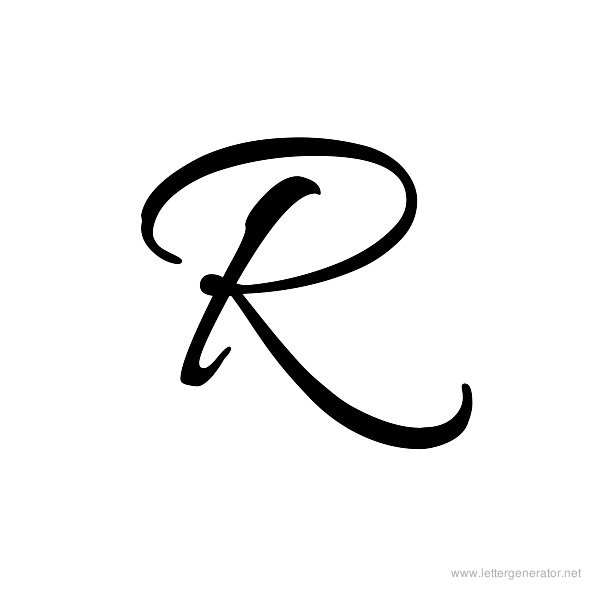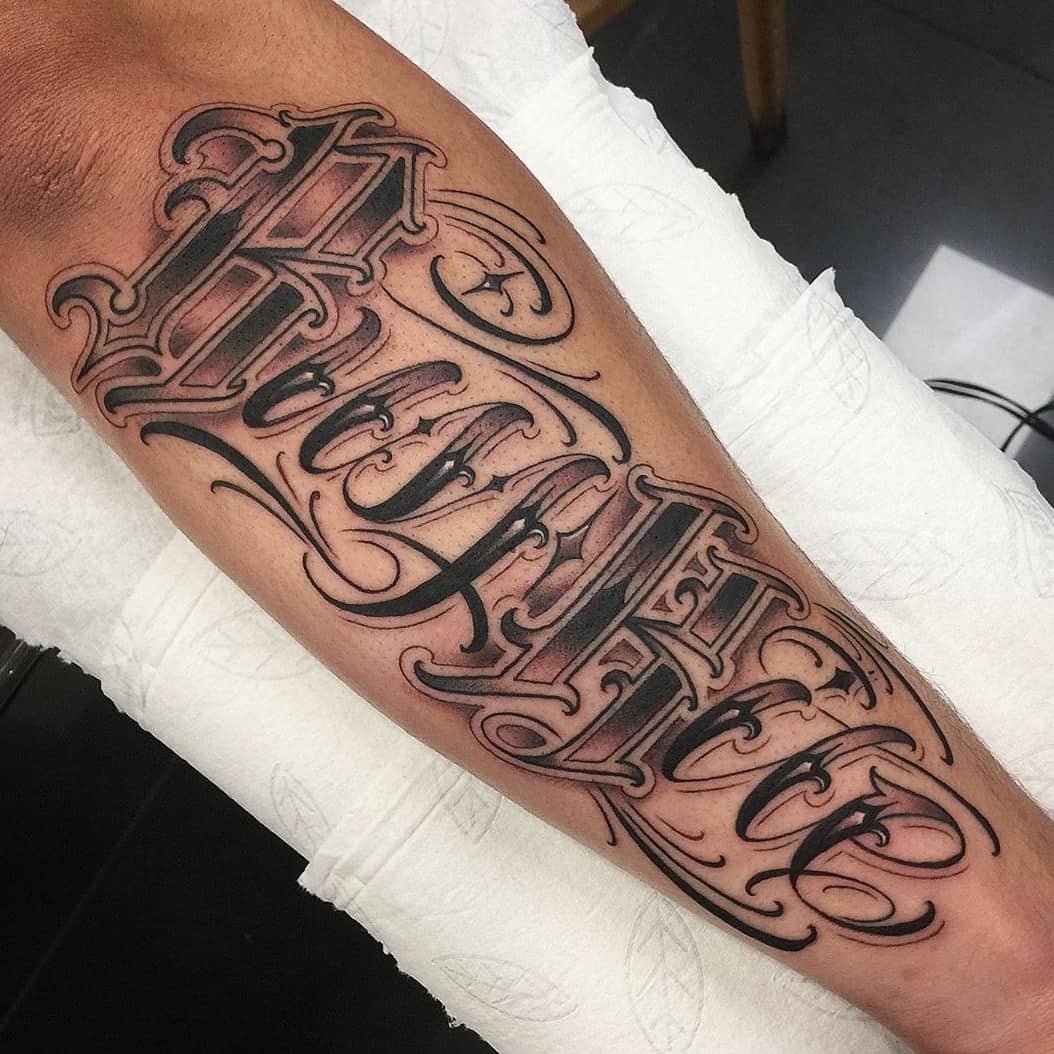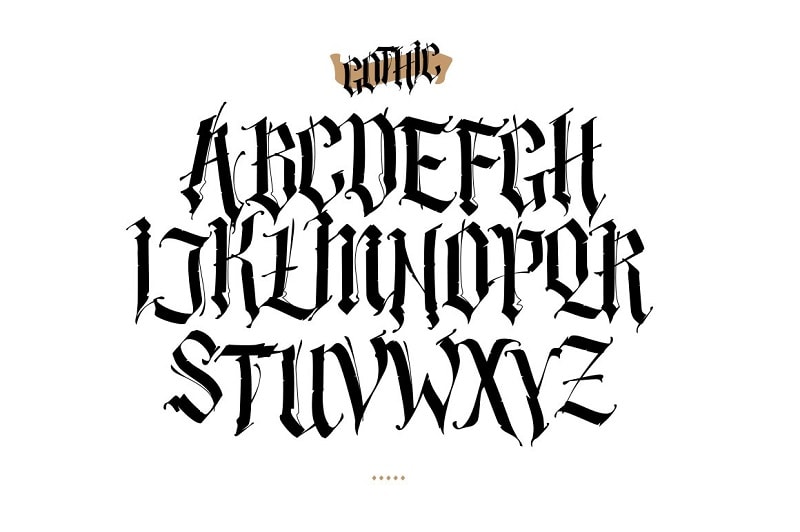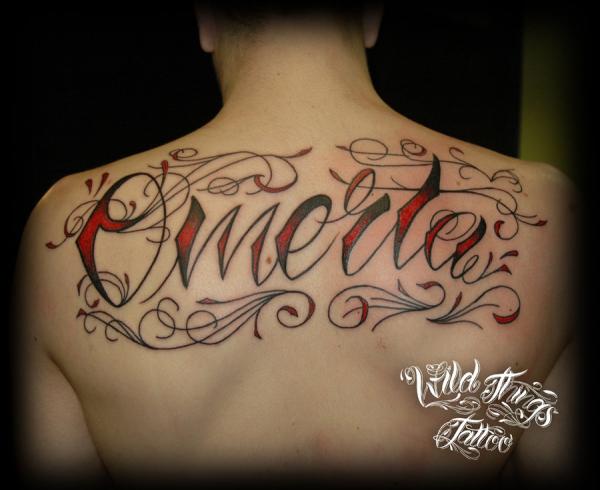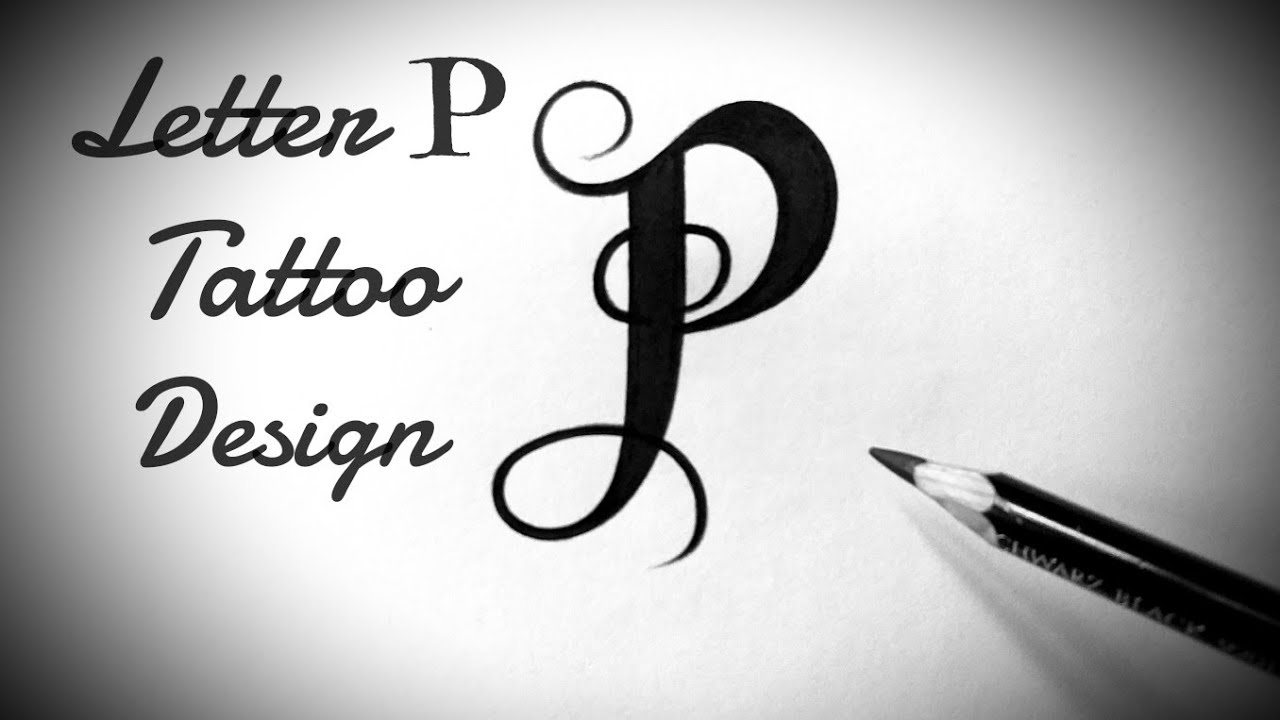
Lemon Jelly by Billy Argel.
Cool letter fonts for tattoos. This page lets you generate all sorts of fancy and cool letters which you can copy and paste to facebook instagram twitter fortnite names discord chat and just about anywhere else that text is allowed. Calligraphy Decorative Gothic Script Tattoo. Go Italics Handwriting Elegant Weird Arabic Ancient.
Tattoos Letters and fonts Symbols emoji. Texts have conveyed human emotion since they were invented. Designs can also be incorporated in tattoo fonts directly.
There are various kinds of Tattoo Lettering Styles all expressing something. Allessa by Billy Argel. Julius Sans One Font Style for a Name Tattoo Best Tattoo Fonts.
Find and download the right font for your next tattoo. Lettering styles include tribal traditional sailor blackletter fancy cursive script etc. Artonic - Cucu Supriyadi.
La Belle Aurore Font Style for a Name Tattoo. Little Lord Font Leroy - Nicks Fonts. These are all great fonts very expressive and showing the different ideas in texts that have been inked by people.
Wicked Tattoo Lettering Alfabeto Completo tattoo lettering fonts wicked script rest tattoos font cool styles quotes hand drawings graffiti sketches sketch freehand ink typography drawn fonts tattoo script letter lettering sleep alphabet font tattoos styles graffiti letters chicano cursive calligraphy drawing gangster drawings mexican english norm tattoo rise wicked script tattoos lettering. Text tattoos are greatly popular. Ginga is an ink-blot style font with long tails and interesting swashes.
There are dozens of fonts to choose from so make sure you scroll down through the list to see them all before deciding on a font that you like. Angel rhapsody by StringLabs. Kelly Slab Font Style for a Name Tattoo.
When you think tattoo font Ink in The Meat is likely the style that comes to mind. Joti One Font Style for a Name Tattoo. Krona One Font Style for a Name Tattoo.
Lovely Home by Typhoon Type - Suthi Srisopha. Chopin Script - Dieter Steffmann. Kotta One Font Style for a Name Tattoo.
The cool visual impact of this tattoo comes from its Bella font and overlapping circles design. See more ideas about tattoos cute tattoos cool tattoos. Summer Daisy by Billy Argel.
Home Tattoos Cute Graffiti Gothic More Graphic fonts Alphabets. Amsterdam by Billy Argel. It brings back memories of some of the older-style tattoos that were popular in the early days of.
The tattoo font is fancy but not too elaborate for everyday use for almost any type of project in need of display lettering with pizzazz. Stay High Typeface GraphicRiver OTF TTF Inspired by handwritten letters and the cool side of street life this modern typeface features a wild curvy design with all the characters you could ask for. If you want tattoo fonts that are cursive and elegant try out Brushgyo.
These tattoos are done in various fonts and they are very powerful mediums of expressions. Achieve a mischievous look by applying shadows around the text of your tattoo fonts. Kavoon Font Style for a Name Tattoo.
Stay High is a unique blend of a graffiti and cursive tattoo font. Amsterdam by Billy Argel. Little Lord Font Leroy -.